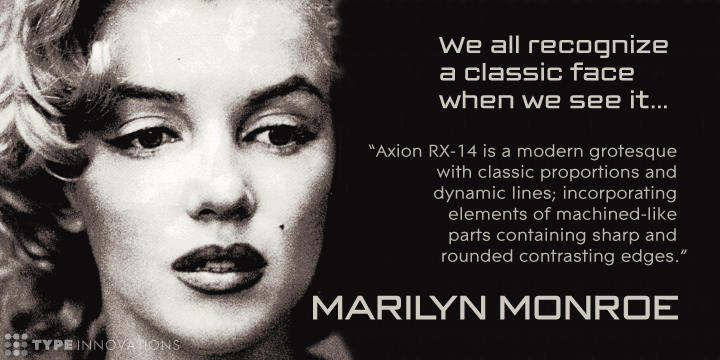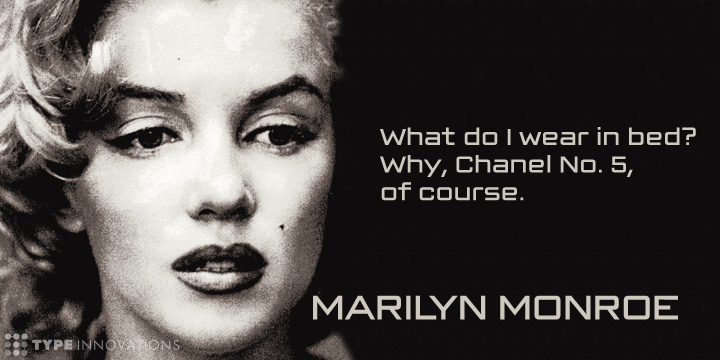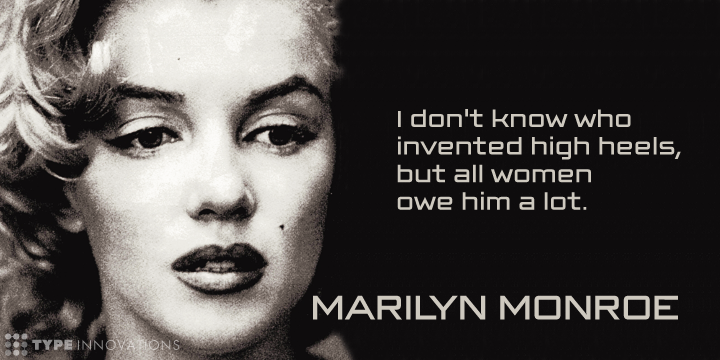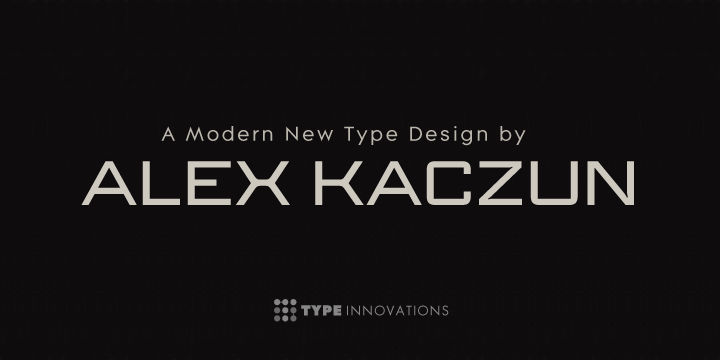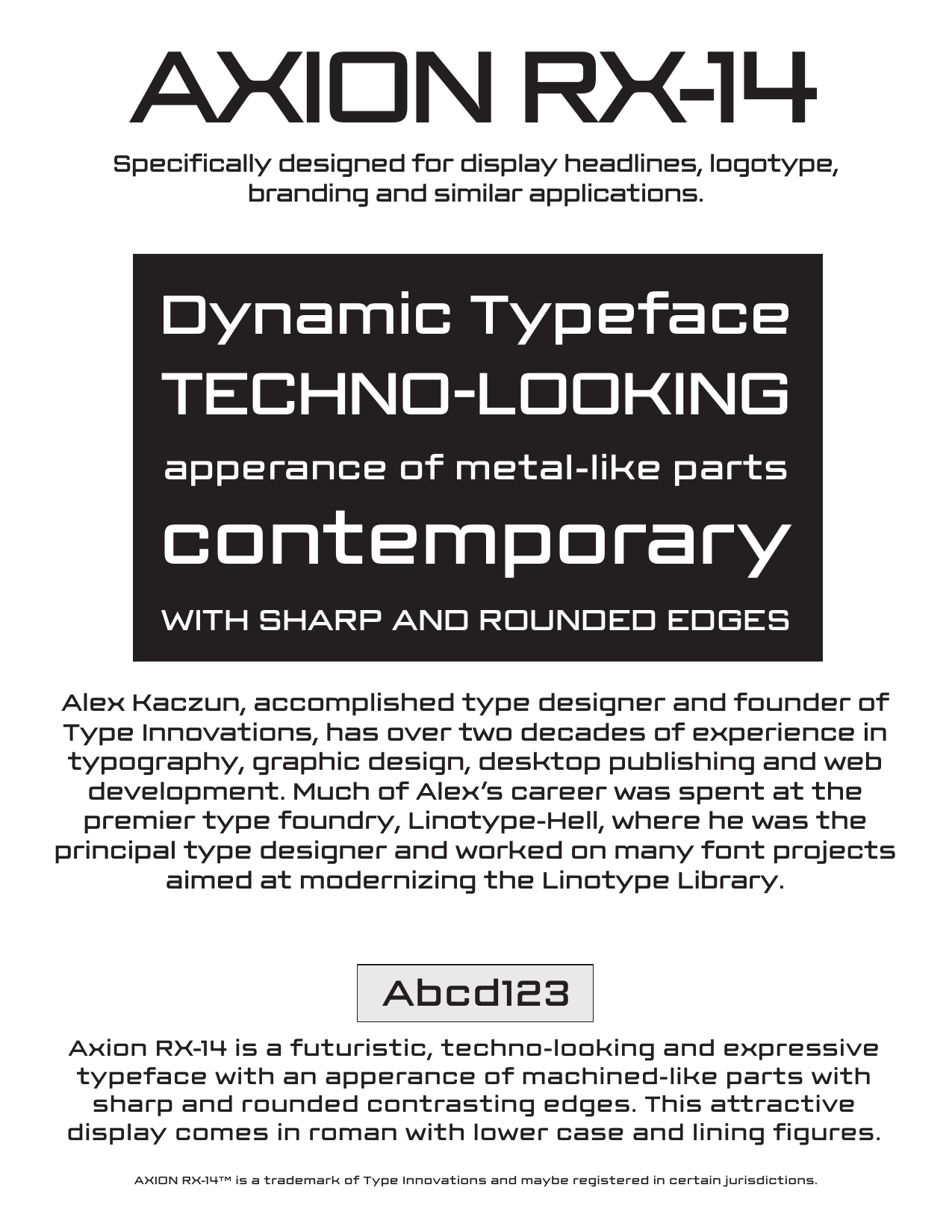
Axion RX 14
Axion RX-14 is an original design by Alex Kaczun. It is but one of several alternate designs based on his original Axion family of fonts.
Design elements on caps like ‘A’,‘V’ and terminals of ‘C’ and ‘G’ along with contrasting sharp and rounded corners, create a tension within this modern grotesque and add a class of distinction and interest. This display font is not intended for text use. It was designed specifically for display headlines, logotype, branding and similar applications. The entire font has an original look which is strong, dynamic, machine-like and can be widely used in publications and advertising.
Axion RX-14 is a futuristic, techno-looking and expressive typeface with an appearance of machined parts with sharp and rounded edges. This attractive display comes in roman with lower case and lining figures. The large Pro font character set supports most Central European and many Eastern European languages.